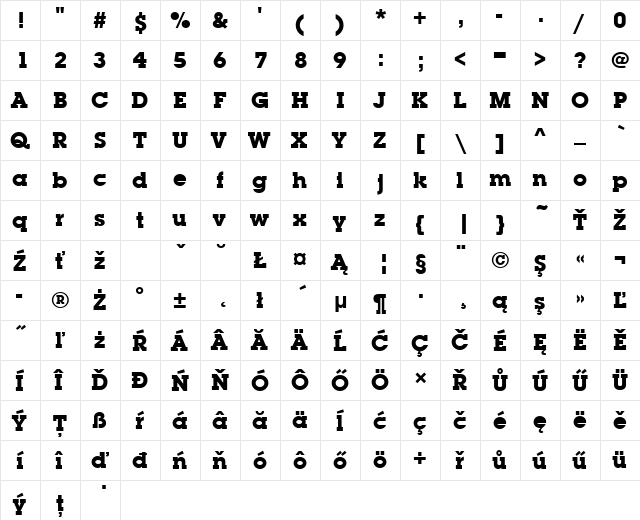
LubalinGraItcTEE Bold Font Preview
LubalinGraItcTEE Bold
Design Context for LubalinGraItcTEE Typeface
LubalinGraItcTEE is a composed and adaptable typeface that performs quietly and consistently across a wide range of design contexts. The heavy weight commands attention and anchors typographic hierarchies.